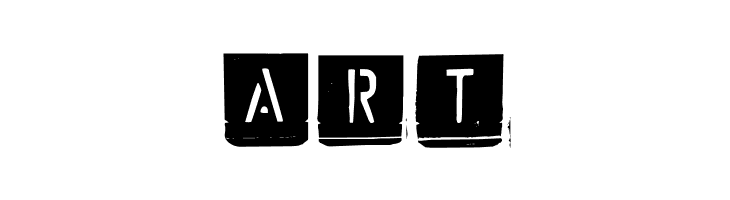
A bold, distressed stencil-style font with rugged, uneven characters.
A bold, stencil-style font with high contrast and geometric shapes.
A rugged, stencil-style font with jagged edges and a bold presence.
A bold, distressed stencil-style font with a rugged, vintage appearance.
A bold, distressed stencil font with a rugged, industrial feel.
A bold, distressed stencil font with a vintage industrial look.
A bold, distressed font with a vintage, industrial style.